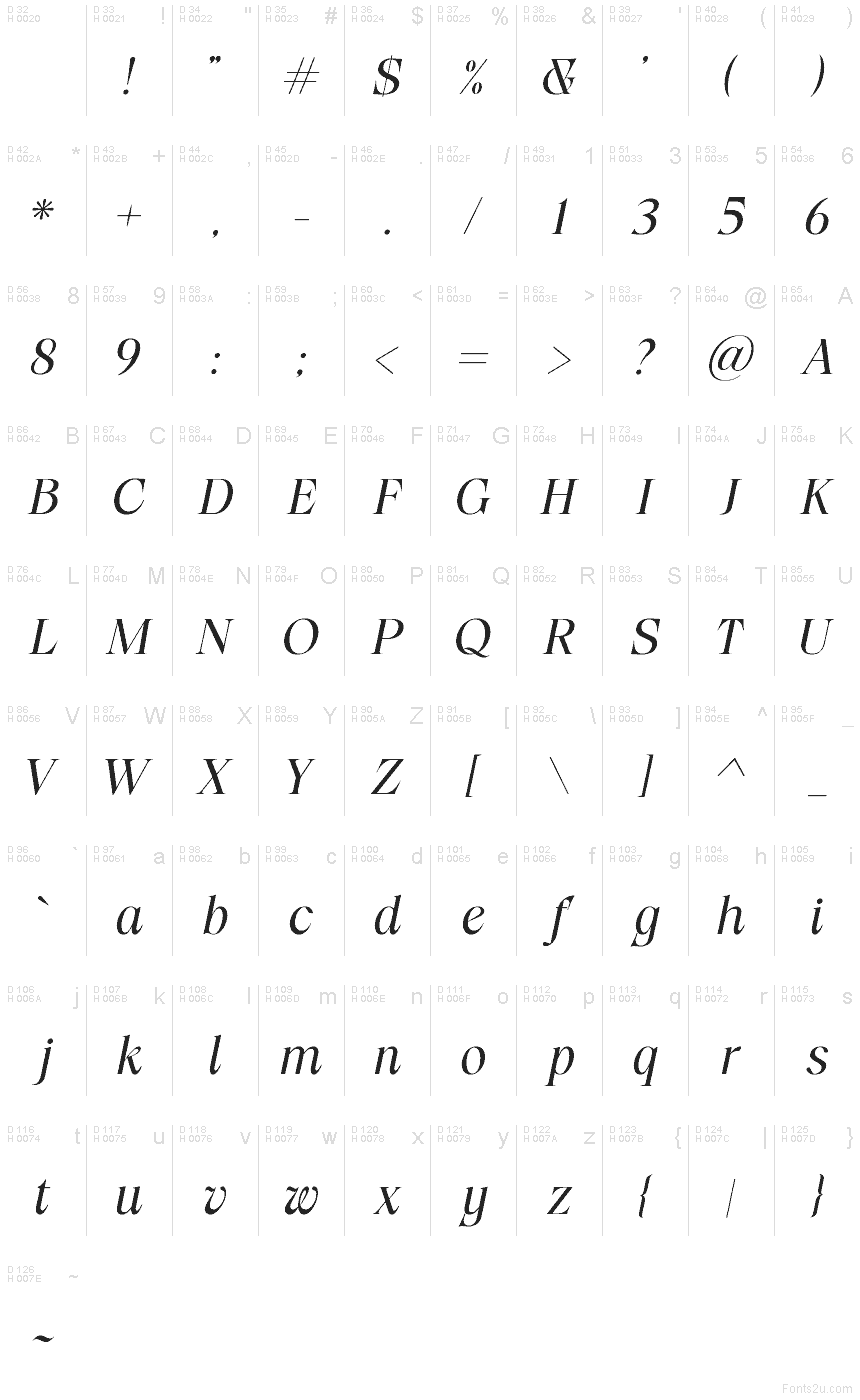
Radilen Aveline Italic
Radilen Aveline Italic font, designed by Dora Typefoundry, is an elegant, sophisticated serif font. This classic and refined typeface conveys the strongest emotions via its subtle glyphs with thin and consistent ink lines. Traditional yet stylish, this formal font exudes a clean and impressive look.